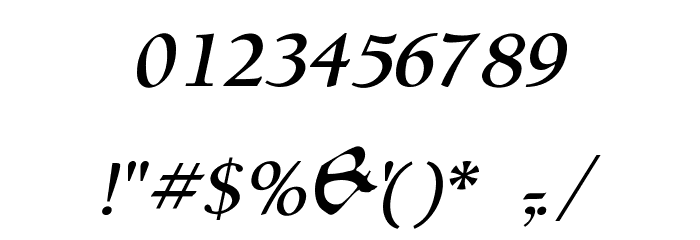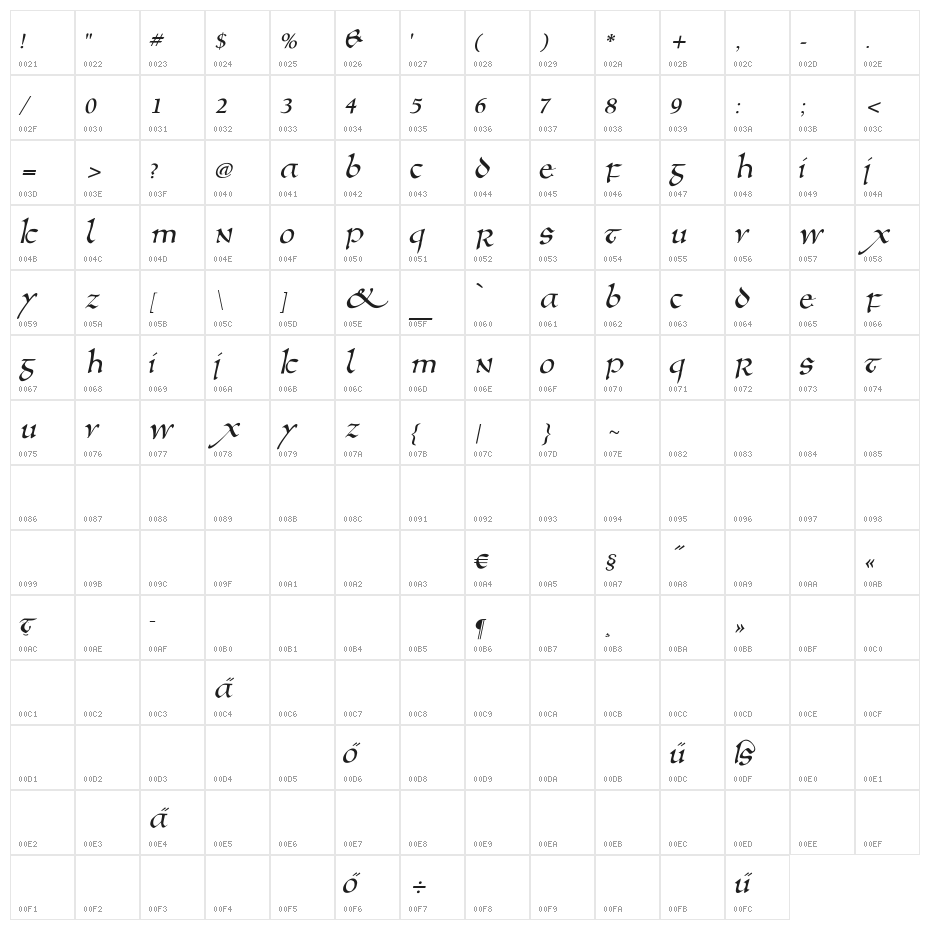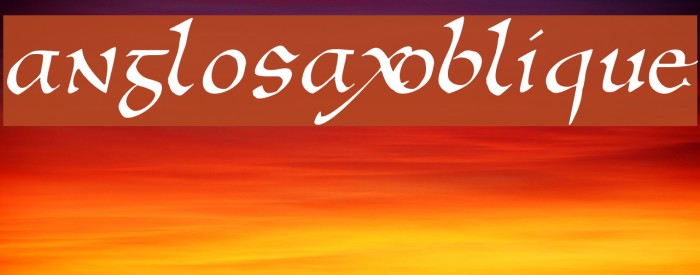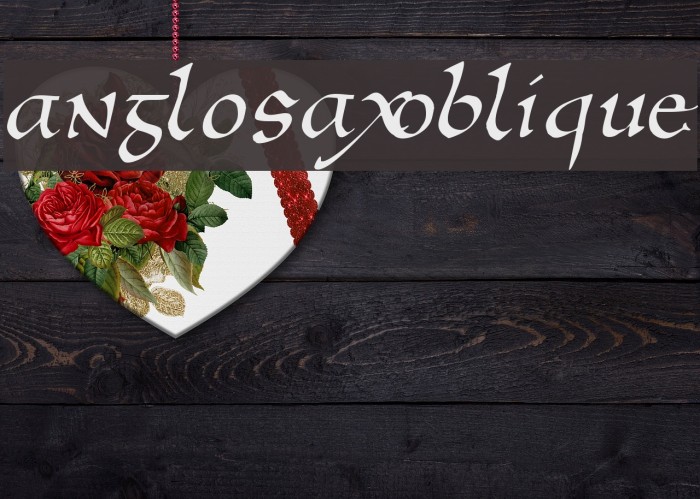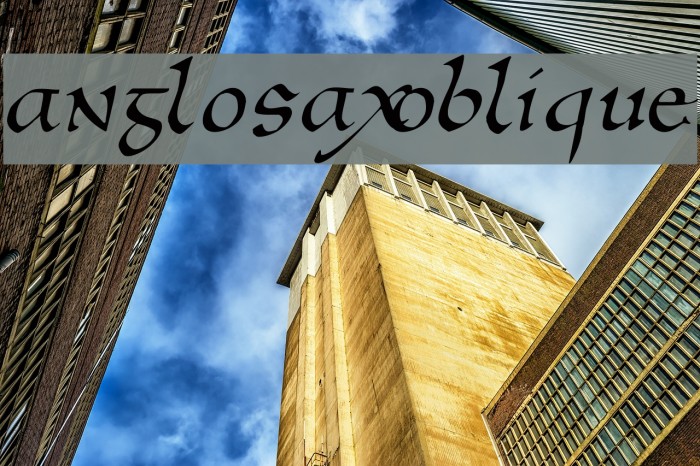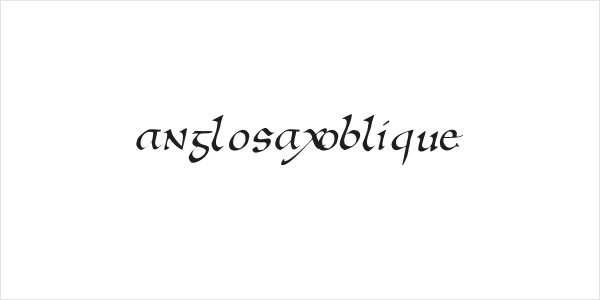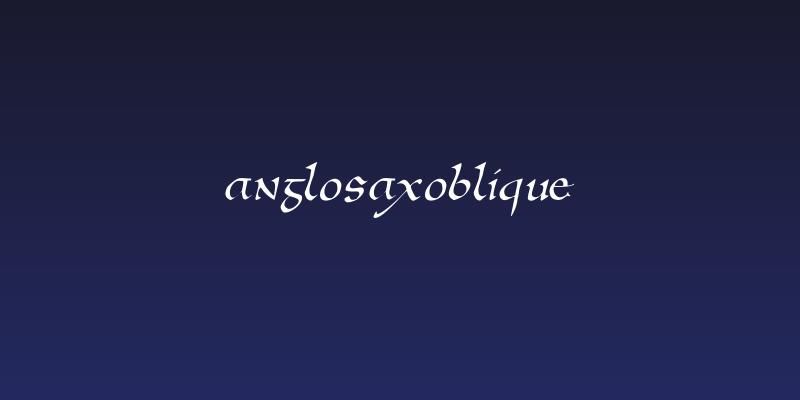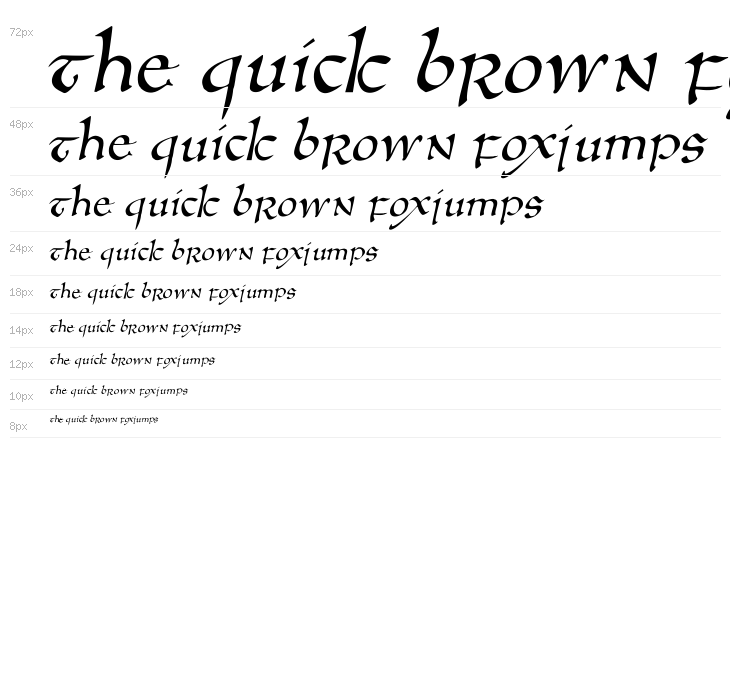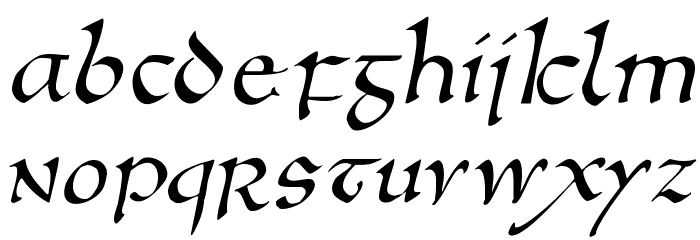
AnglosaxOblique Font
AnglosaxOblique Description
This font exhibits a distinct medieval and calligraphic style, reminiscent of historical scripts with its angular and flowing strokes. The characters are elegantly crafted with a slight slant, giving them an oblique appearance. The uppercase and lowercase letters maintain a consistent style, with sharp edges and intricate details that evoke a sense of antiquity. The numerals are designed to match the overall aesthetic, featuring similar angular forms. Special characters are included, maintaining the decorative and historical theme. This font is ideal for projects that require a touch of historical elegance and sophistication.
| Use Case | Headlines, Logos, Decorative text |
| Proposed Projects | Ideal for historical documents, themed invitations, book covers, and branding that requires a vintage touch. |